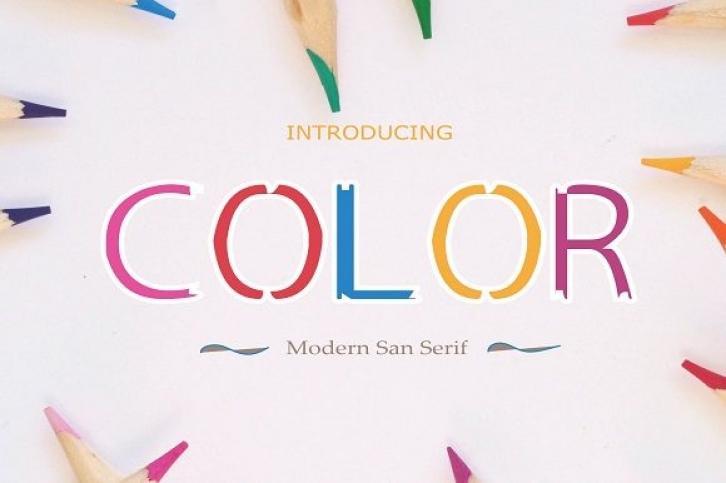
Color is a simple and friendly display font. It will add an incredibly joyful touch to your designs. Add this beautiful display font to each of your creative ideas and notice how it makes them stand out!